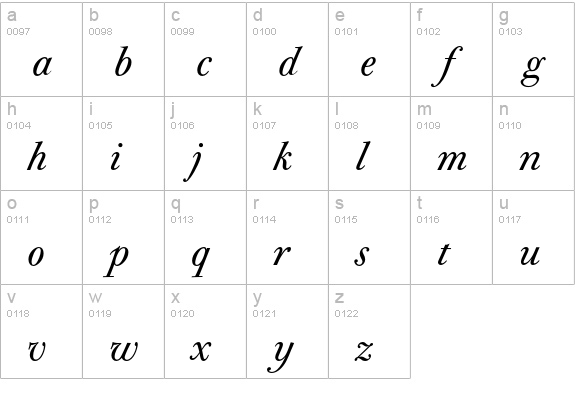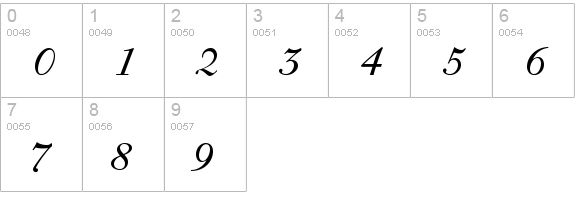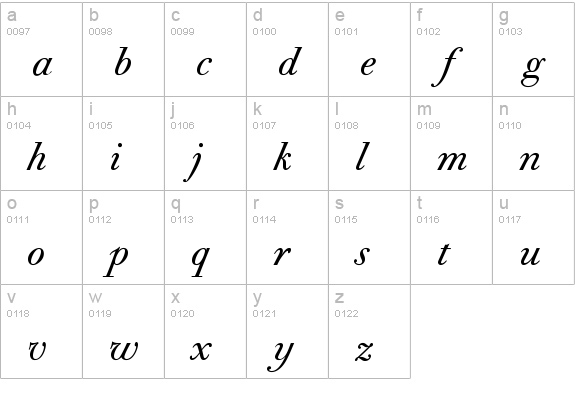
Bodoni Old Face BE Italic Font Details
Bodoni Old Face BE Italic is a distinctive, italic variant in the Bodoni typeface family \xE2\x80\x94 well suited to design and typography projects.
Bodoni Old Face BE Italic font exudes elegance and sophistication, with its distinctive high contrast strokes and graceful curves. This timeless typeface embodies classic beauty and refinement, making it a perfect choice for projects that require a touch of sophistication. The Bodoni Old Face BE Italic font is ideal for adding a touch of luxury to invitations, branding materials, editorial designs, and more. Its italic style adds a dynamic and energetic flair to any text, making it stand out while maintaining a sense of grace and poise. Best of all, this exquisite font is available for free download at FontsMarket.com, allowing designers and creatives to access its beauty and versatility without any cost. Don't miss out on the opportunity to enhance your projects with the timeless charm of Bodoni Old Face BE Italic font.